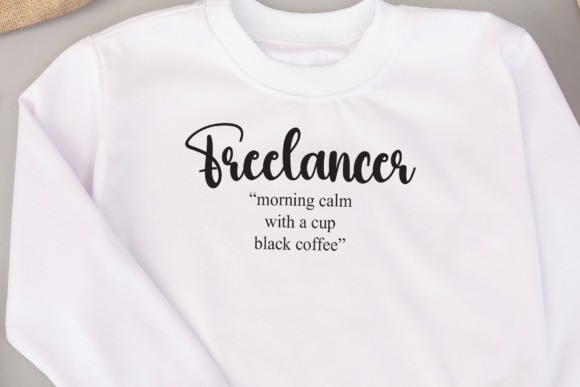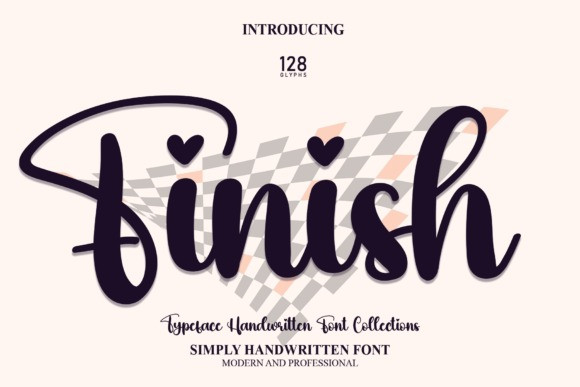
Finish Font
Finish Font is a classic and simple handwritten script, created in a random and free style. It is suitable for logotype, headline font, in corporate identity, brand identity, apparel industry, poster, music, movie, game, magazine, book, comic, cartoon, YouTube, Instagram, website, or any of your creative design projects.